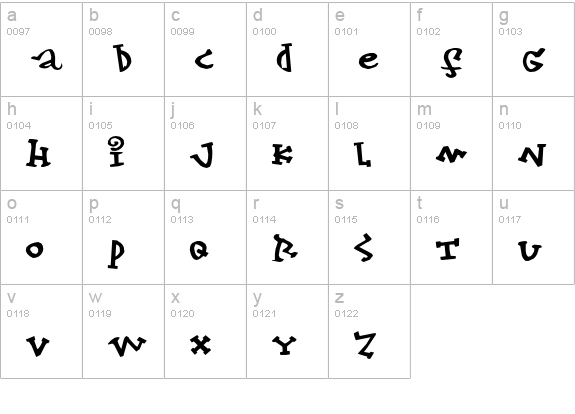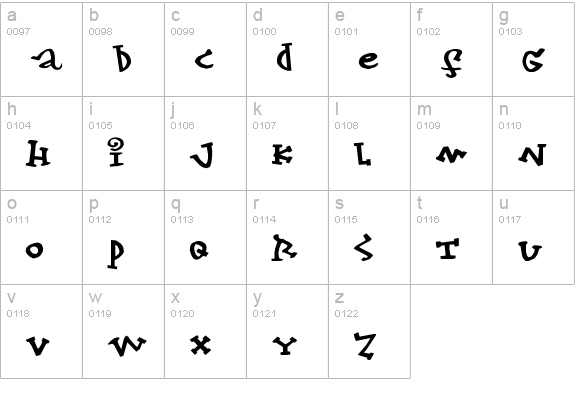
Konfekt Font Details
Konfekt is a stunning and versatile font that embodies elegance and modernity. With its sleek lines and distinctive curves, Konfekt is perfect for adding a touch of sophistication to any design project. This font exudes a sense of style and refinement that is sure to make a lasting impression. What sets Konfekt apart is not only its aesthetic appeal but also its accessibility. This font is available for free download at FontsMarket.com, making it easily accessible to designers and creatives looking to elevate their work without breaking the bank. Whether you're working on a branding project, website design, or any other creative endeavor, Konfekt is a versatile font that will bring your vision to life with grace and style. Let Konfekt be the perfect addition to your font collection and watch your designs come to life with a touch of sophistication and flair.